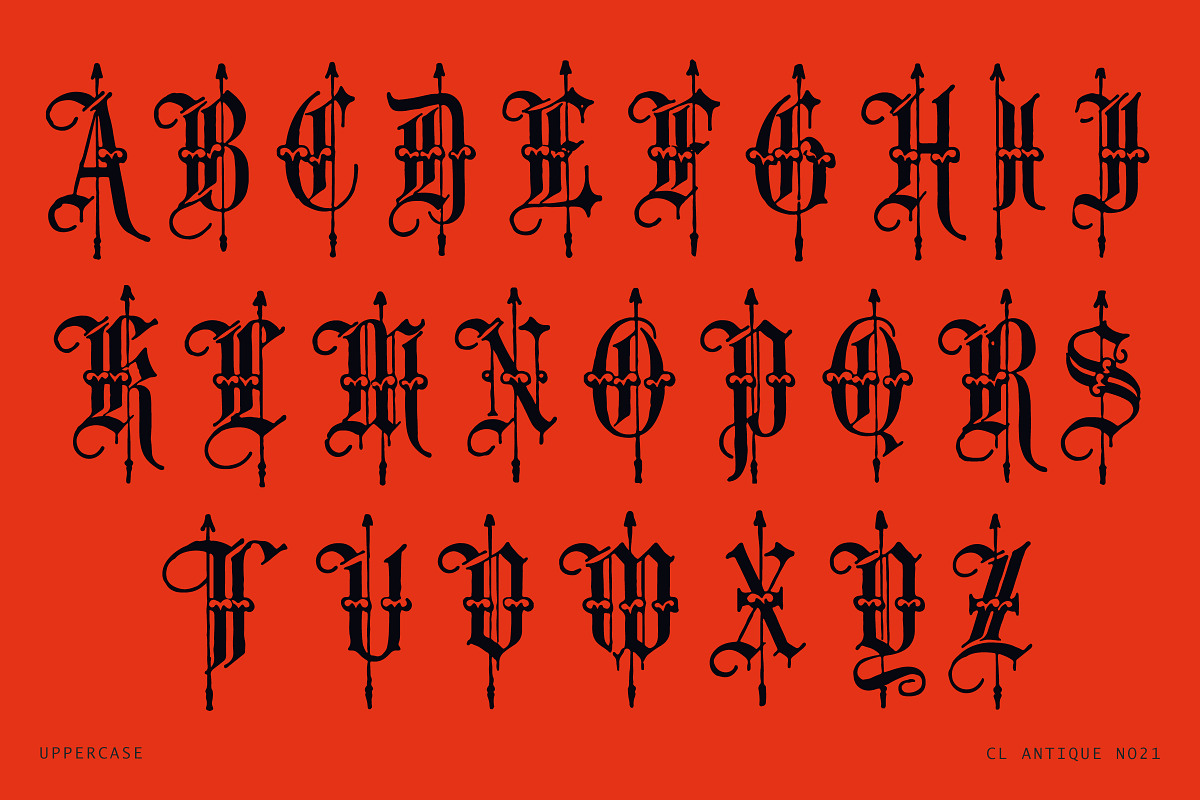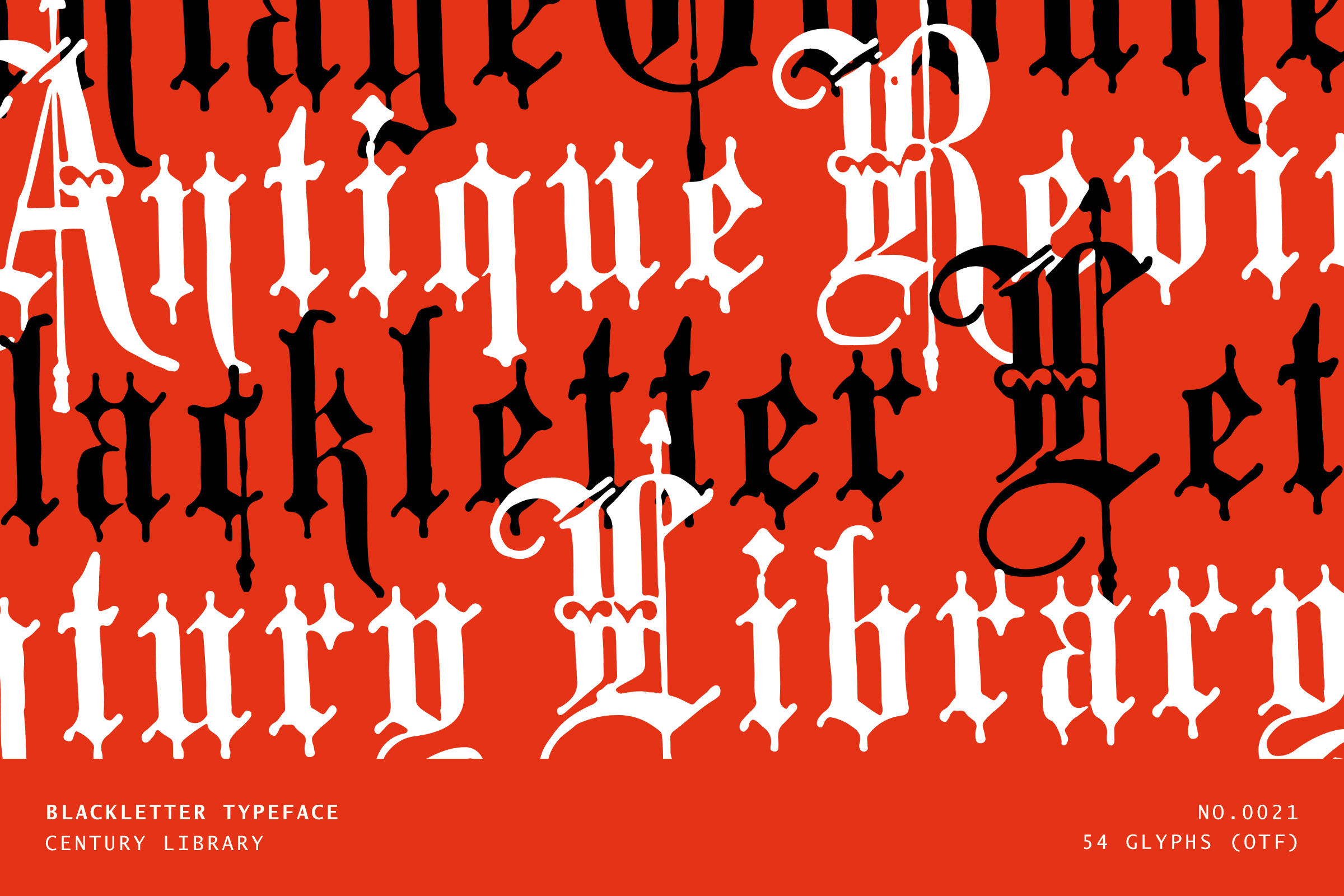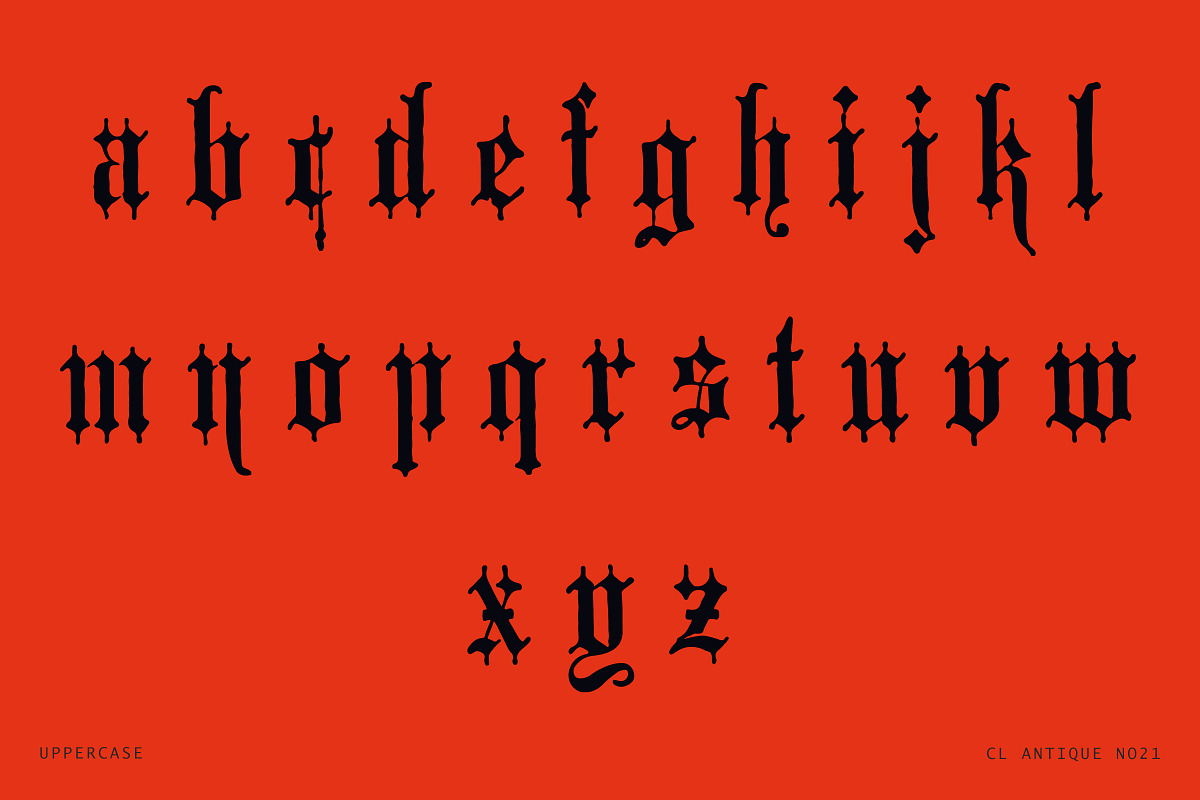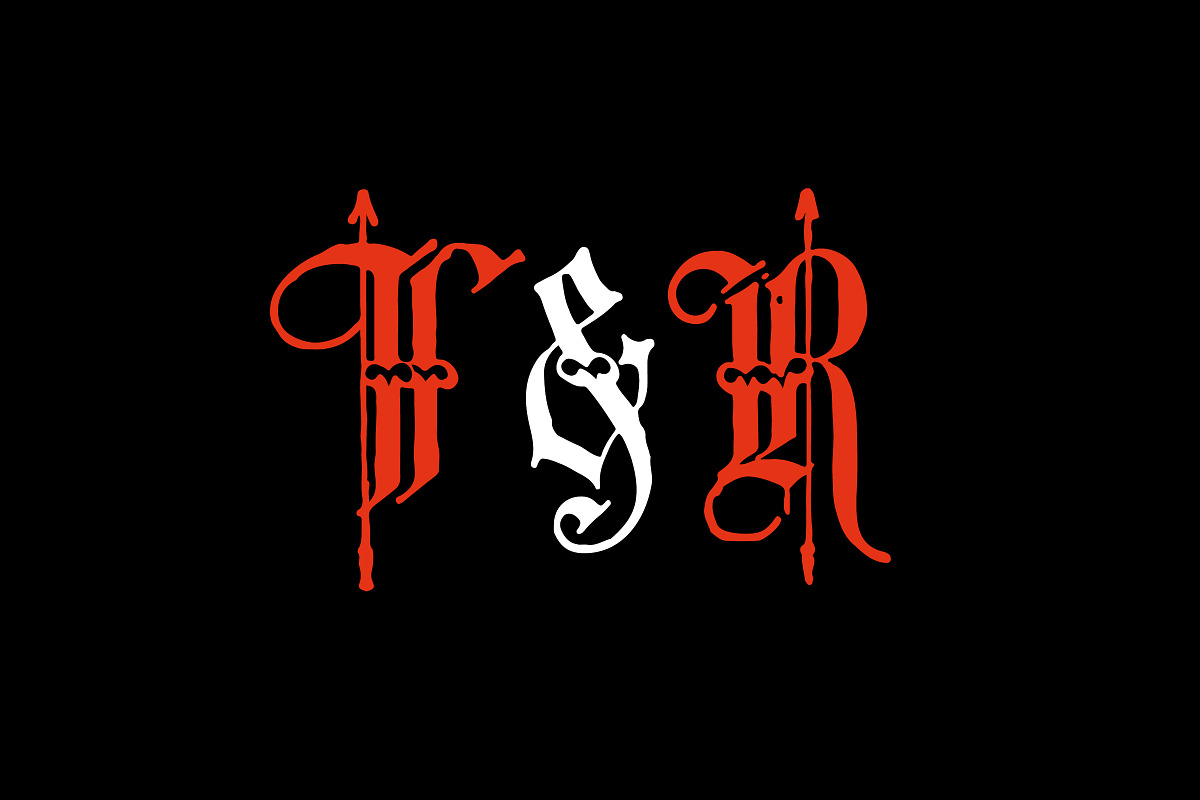
Ornate Vintage Gothic Display Font
This one’s not subtle - CL Antique No.21 is loud, sharp, and dripping with drama. Pulled straight from 19th-century type specimens, this blackletter display font blends heavy gothic structure with ornamental spear-like flourishes for a look that’s impossible to ignore.
Every letter has been faithfully restored from its original engraved form, keeping all the quirks and handcrafted imperfections intact. Use it when you want to go full medieval, full goth, or full metal. Great for branding, tattoos, band merch, book covers, or anywhere you want to make a bold impression.